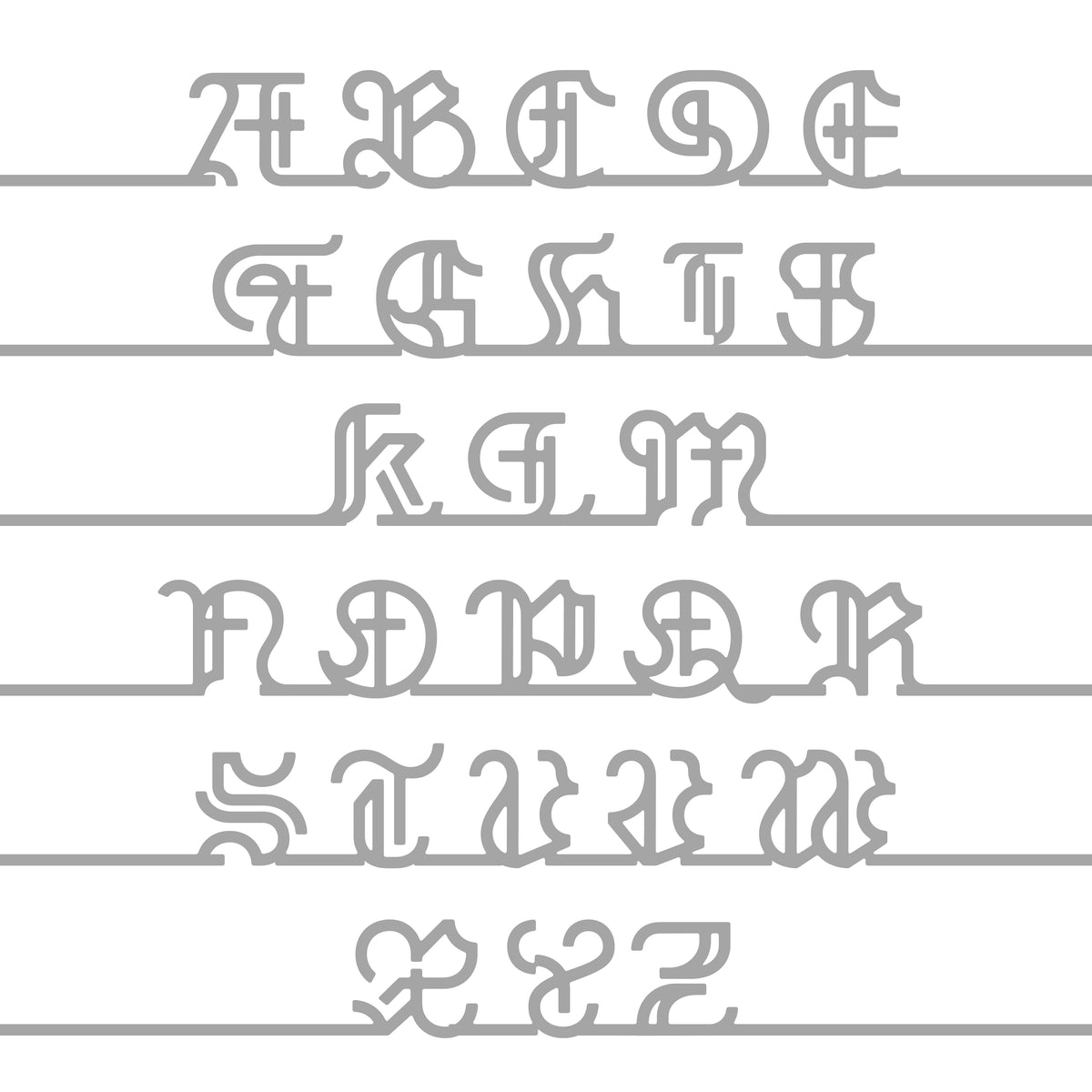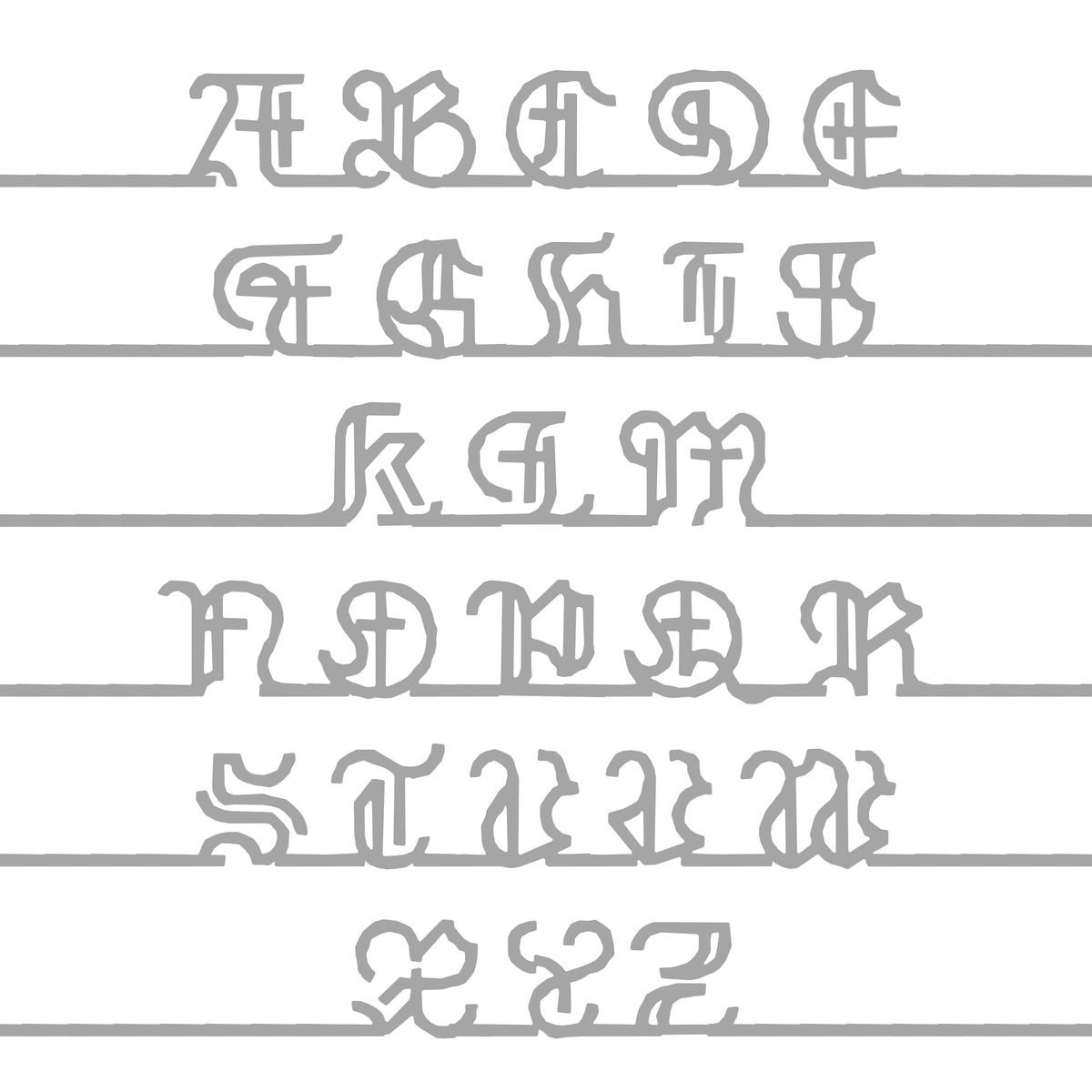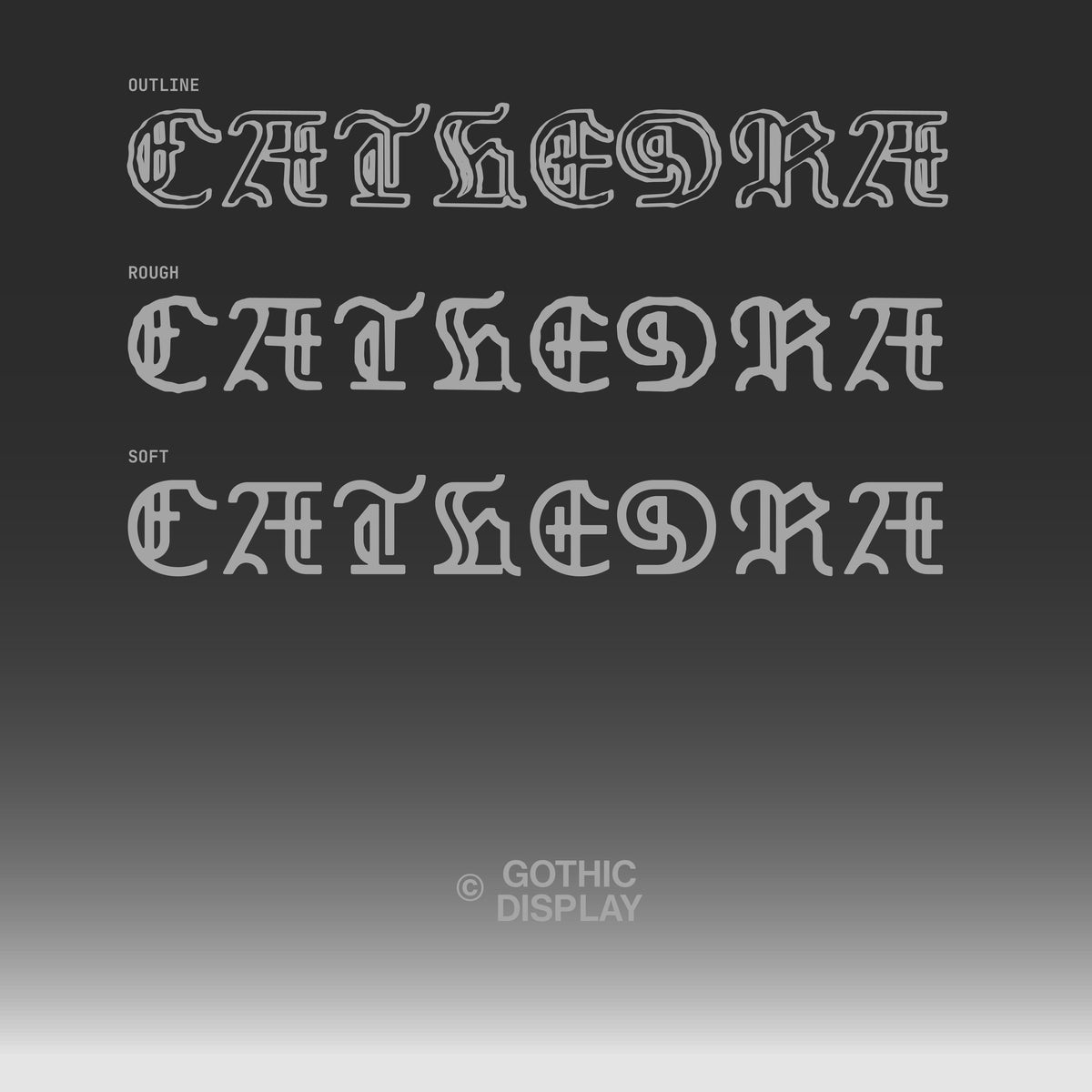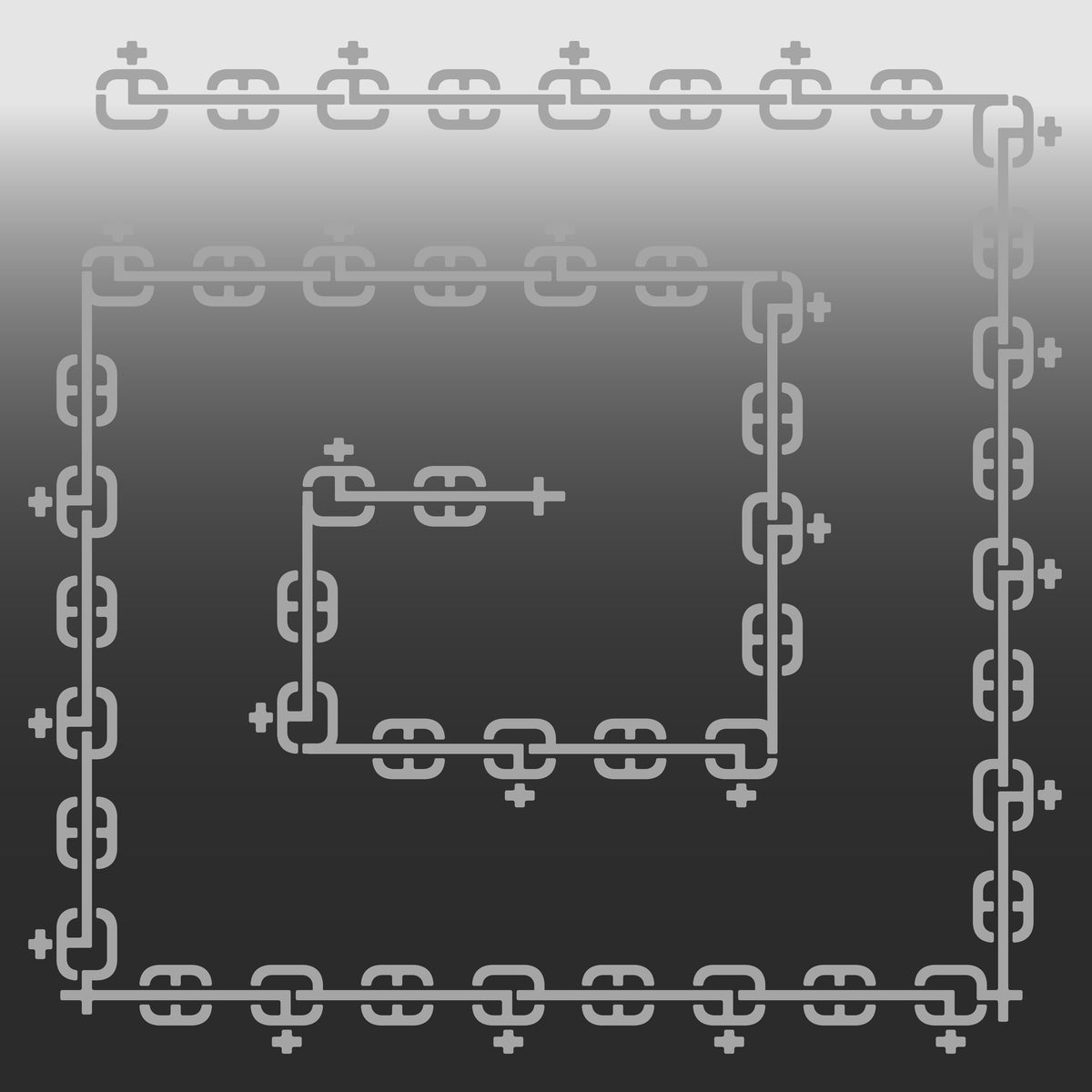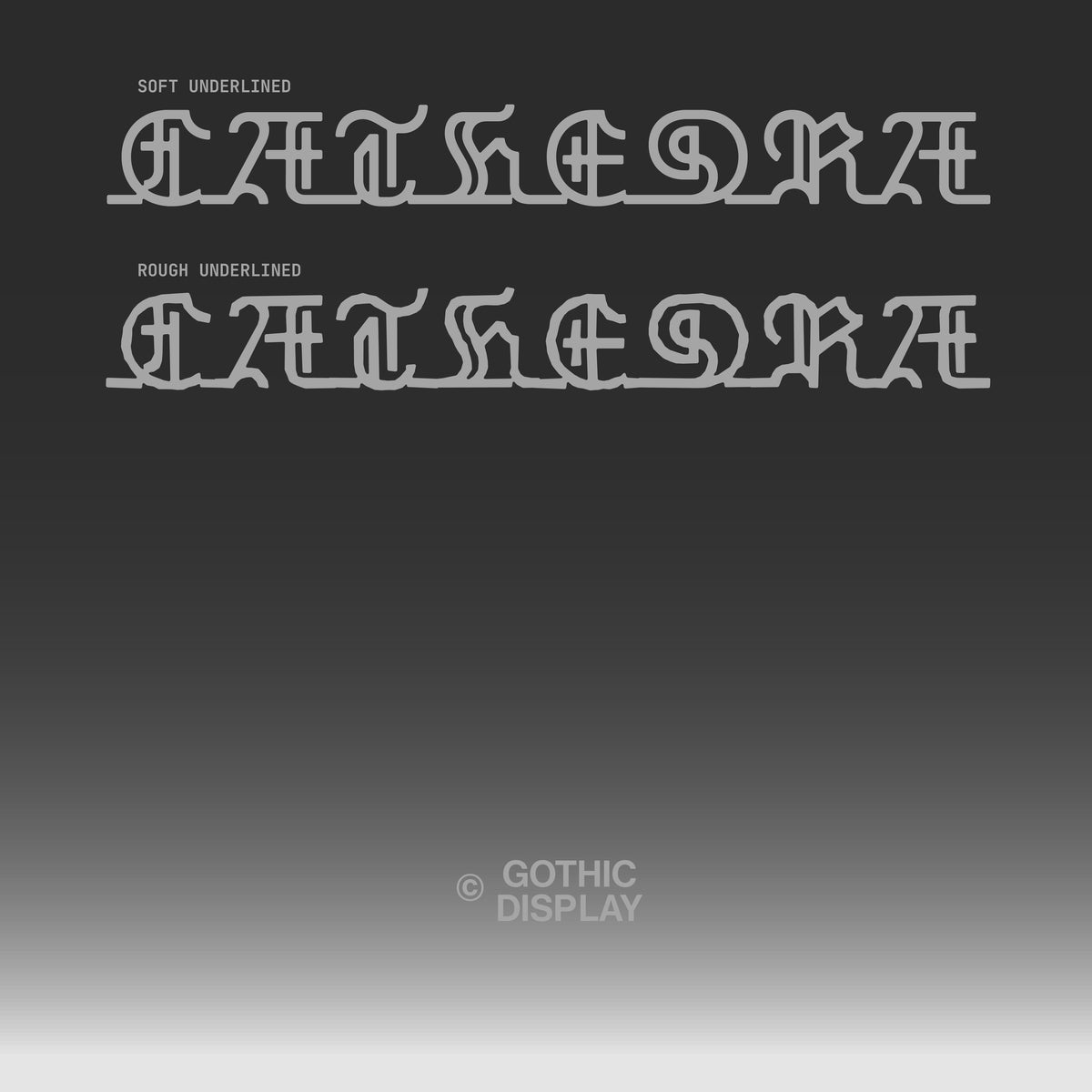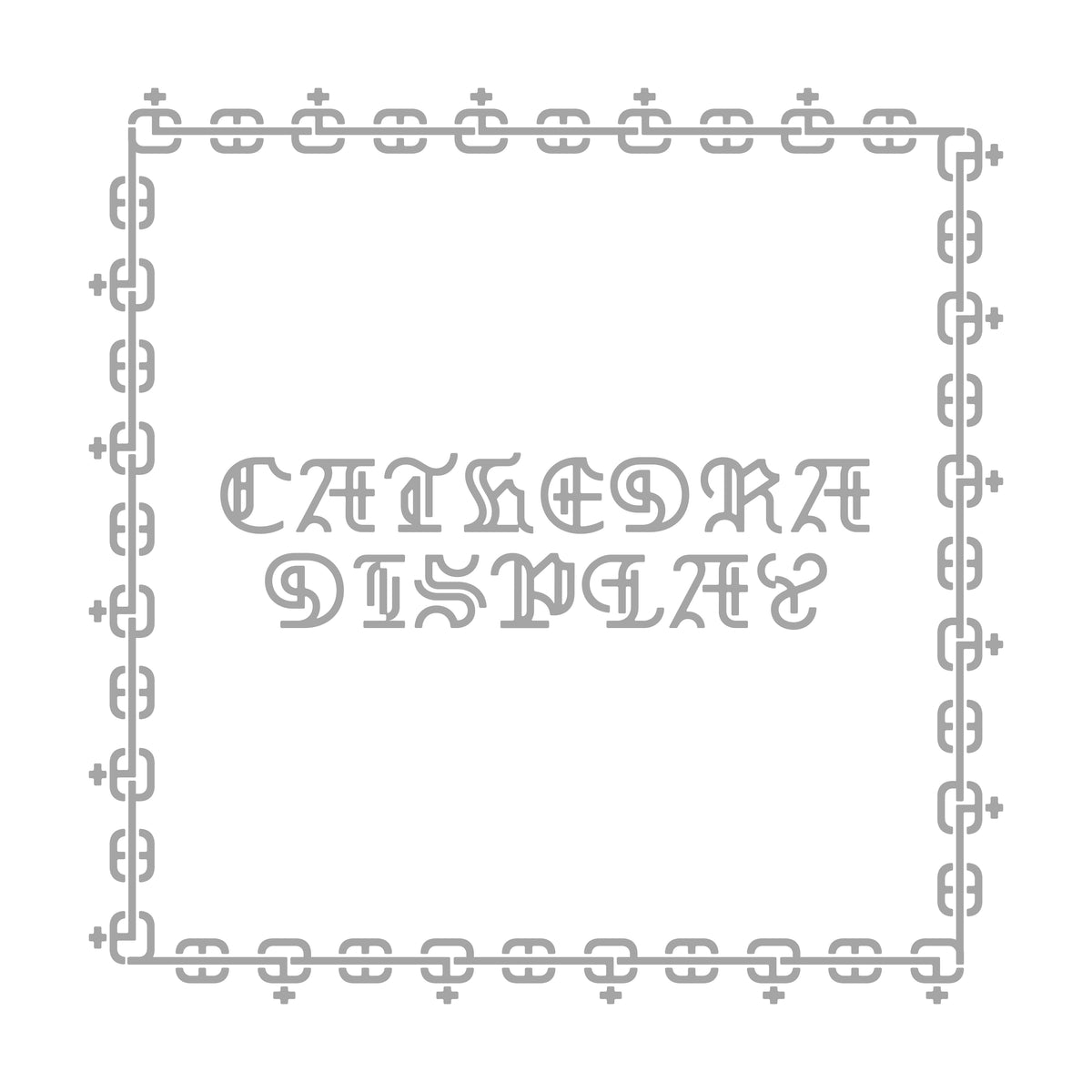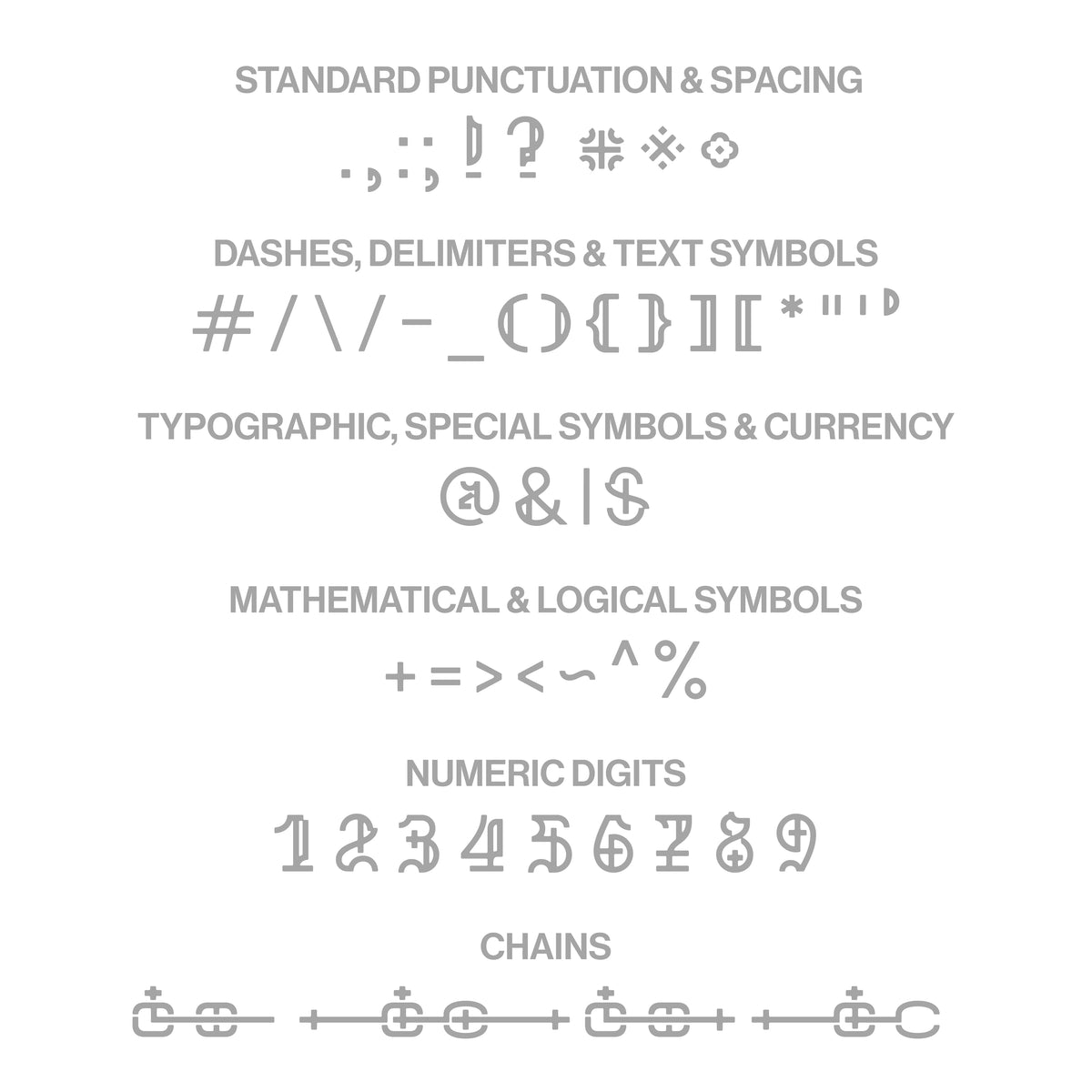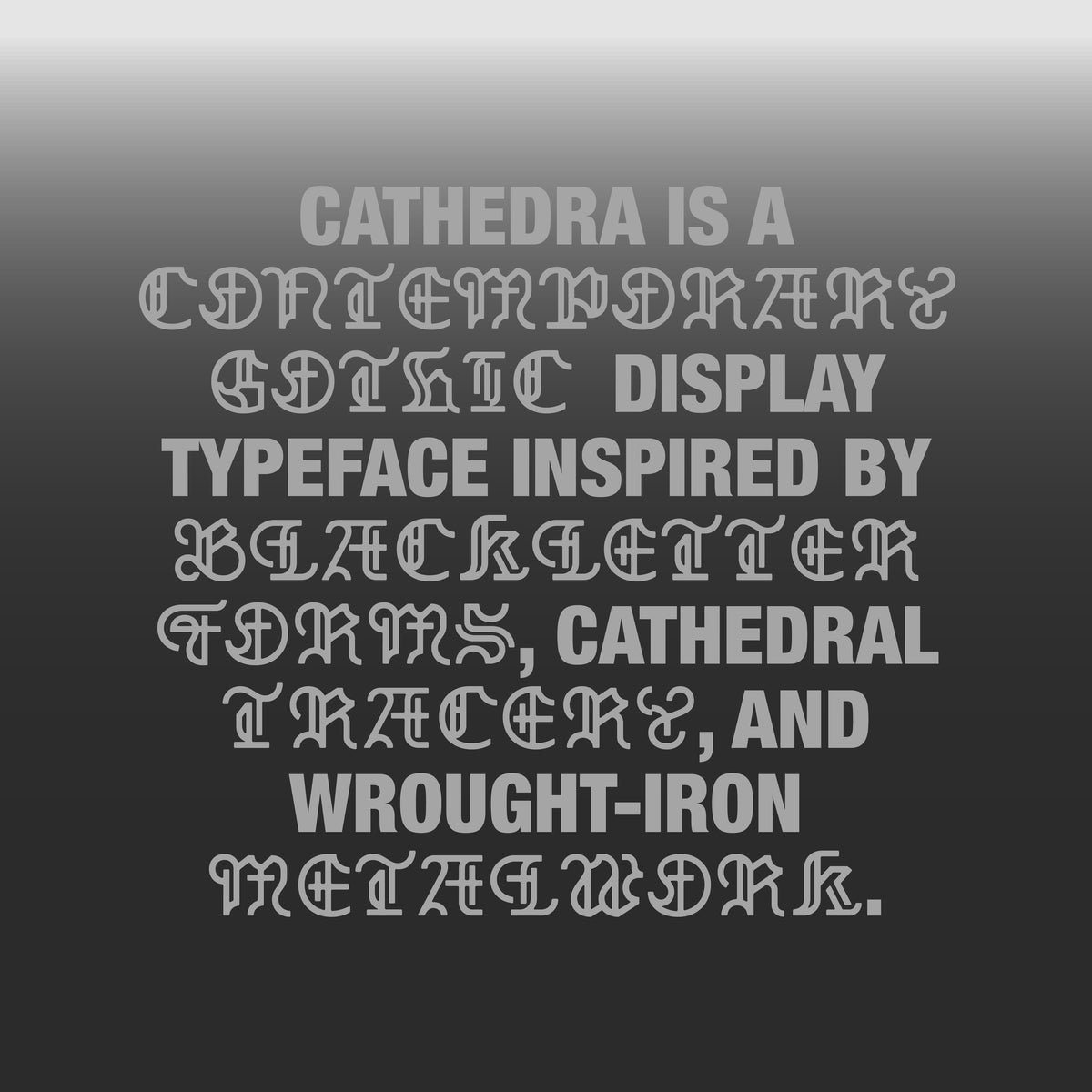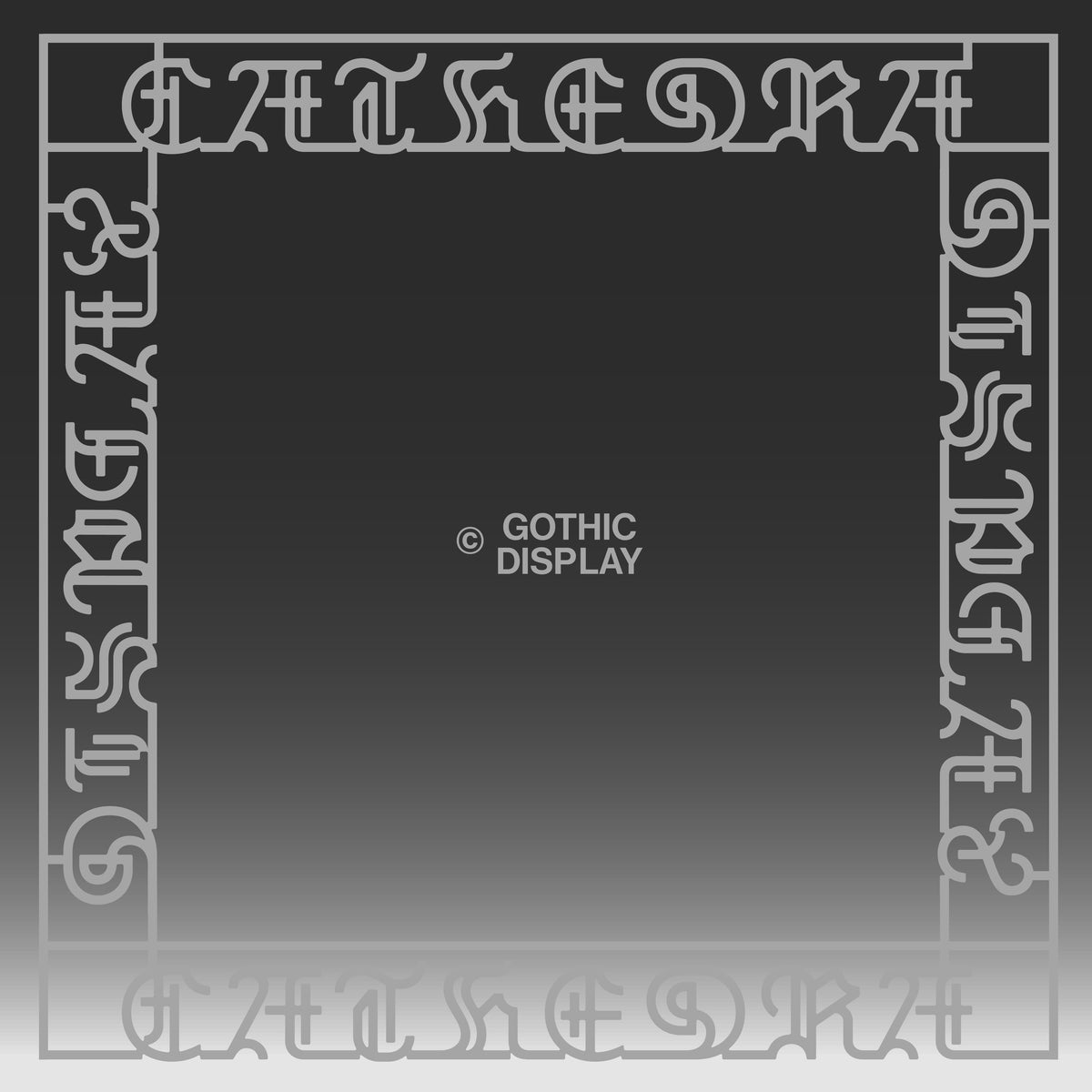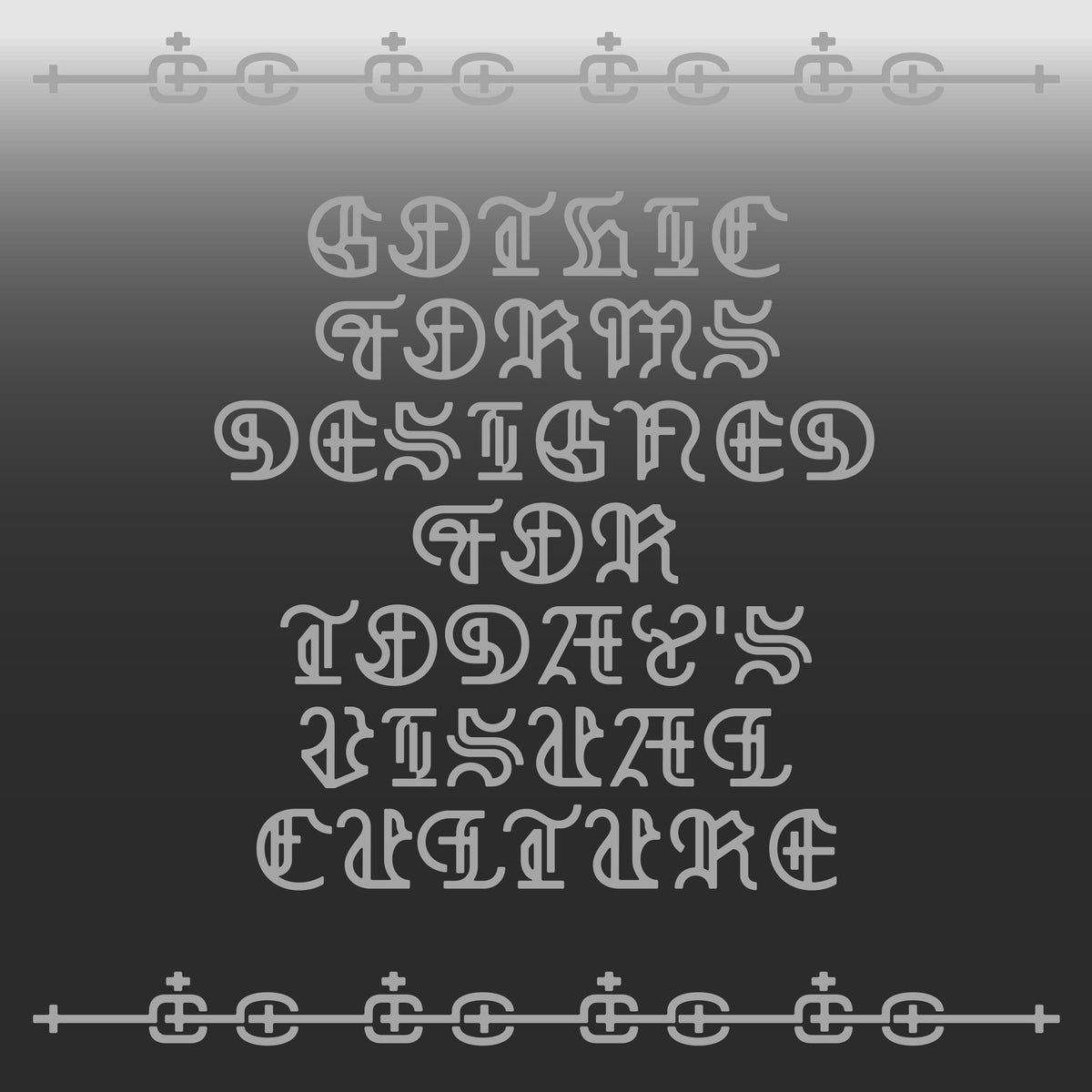
Cathedra Typeface
Cathedra is a contemporary gothic display typeface inspired by blackletter forms, cathedral tracery, and wrought-iron ornamentation. It uses a geometric monoline structure and reworks medieval lettering with a sharp, modular approach. The result keeps the letterforms clear while holding a dark, architectural presence.
The family includes 5 styles designed to work together for layered textures and varied visual tones. The underlined styles connect letters through a continuous horizontal structure, forming patterns based on forged iron grids and gothic architectural details.
• 5 Styles (Outline, Rough, Rough Underlined, Soft, Soft Underlined)
• Alternates
• Symbols
• Mathematics